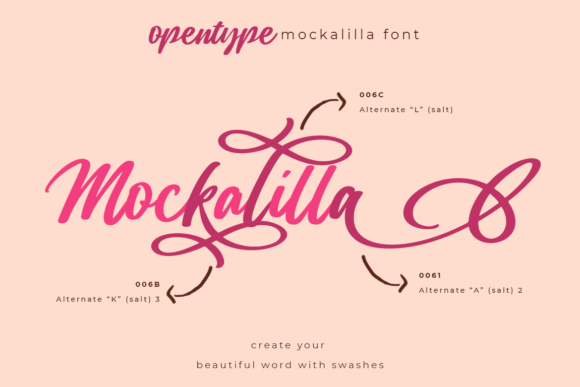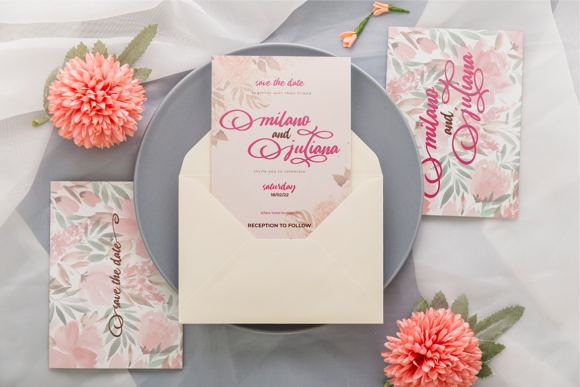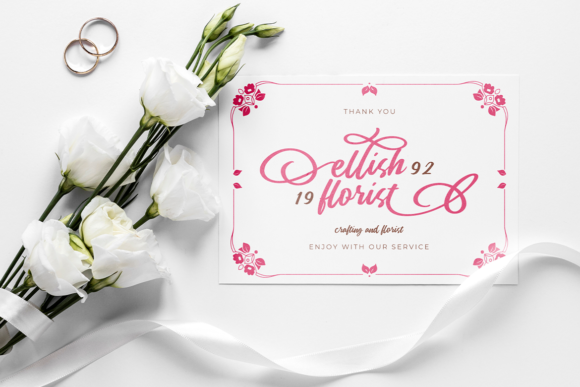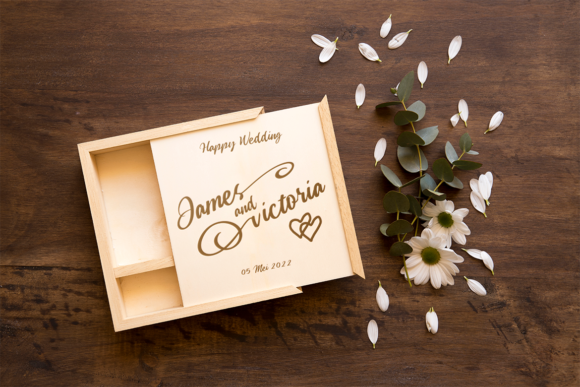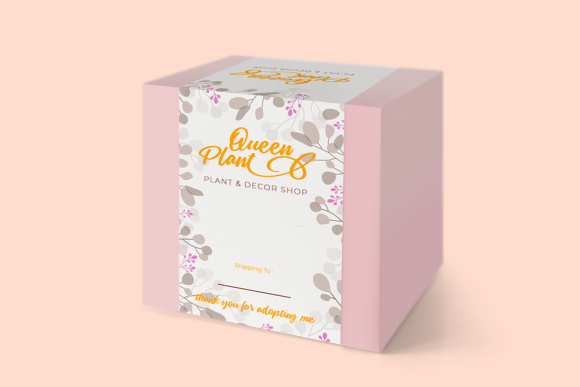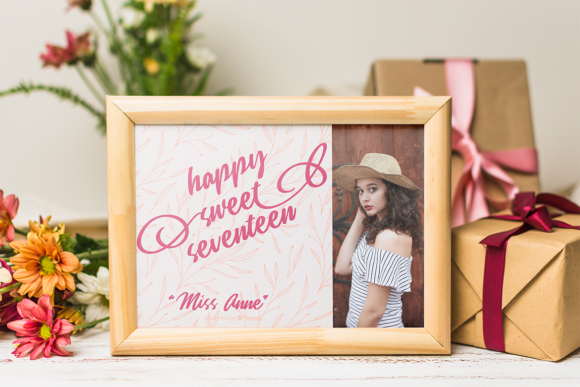
Introduction to Mockalilla Font
Have you ever stumbled upon a font that makes your design dreams come true? I’m sure you have, but for those who are still searching, I’m excited to introduce you to the lovely Mockalilla Font. This high-quality, handwritten font is a game-changer for any creative project that requires a touch of elegance and sophistication.
Imagine crafting a beautiful logo, a stunning quote, or a captivating brand identity, and having the perfect font to bring it all together. With Mockalilla Font, you can achieve just that. Its unique and beautiful touch will make your design come alive, and the best part? It’s PUA encoded, making it easy to access all of the glyphs and swashes you need to create something truly special.
As a designer, you know how valuable a great font can be. That’s why I’m excited to share Mockalilla Font with you, and I’m confident it will become a valuable addition to your design resource library.
Key Features of Mockalilla Font
- High-quality design for creative projects: Mockalilla Font offers a unique and stylish look that can elevate any design project.
- Medium to high contrast: The font’s medium to high contrast design makes it easy to read and use in a variety of contexts, from headings to body text.
- Perfect design resource for graphic designers, artists, and creatives: Mockalilla Font is a valuable addition to any designer’s toolkit, offering a unique and versatile design element.
Honest Review: Mockalilla Font
I recently had the chance to work with the Mockalilla Font in a creative project and I must say it’s a game-changer. This free download is a high-quality design resource that can elevate any design to the next level.
Here’s what works well: ✨ The Mockalilla Font has a beautiful, elegant design that can be used for a variety of projects, from wedding invitations to branding materials. The font is also highly customizable, allowing designers to make it fit their specific needs.
However, there are a few limitations to consider: ⚠️ The Mockalilla Font may not be the best choice for projects that require a more formal or traditional font. Additionally, some designers may find the font’s unique design to be too flashy or overpowering.
Overall, I’m really impressed with the Mockalilla Font and I think it’s a great addition to any designer’s toolkit. With its high-quality design and customizable options, it’s a must-try for any creative project.
Mockalilla Font
Tips for Getting the Most Out of Mockalilla Font
Experiment with different font sizes and colors to create a visually appealing design. Use the transparent background to create interesting layering effects. Combine the Mockalilla Font with other design elements to create a unique and eye-catching design.
The Mockalilla Font is perfect for a variety of creative projects, including logos, business cards, and social media graphics. Its high quality and unique design make it a valuable design resource for any project that requires a touch of sophistication and style.